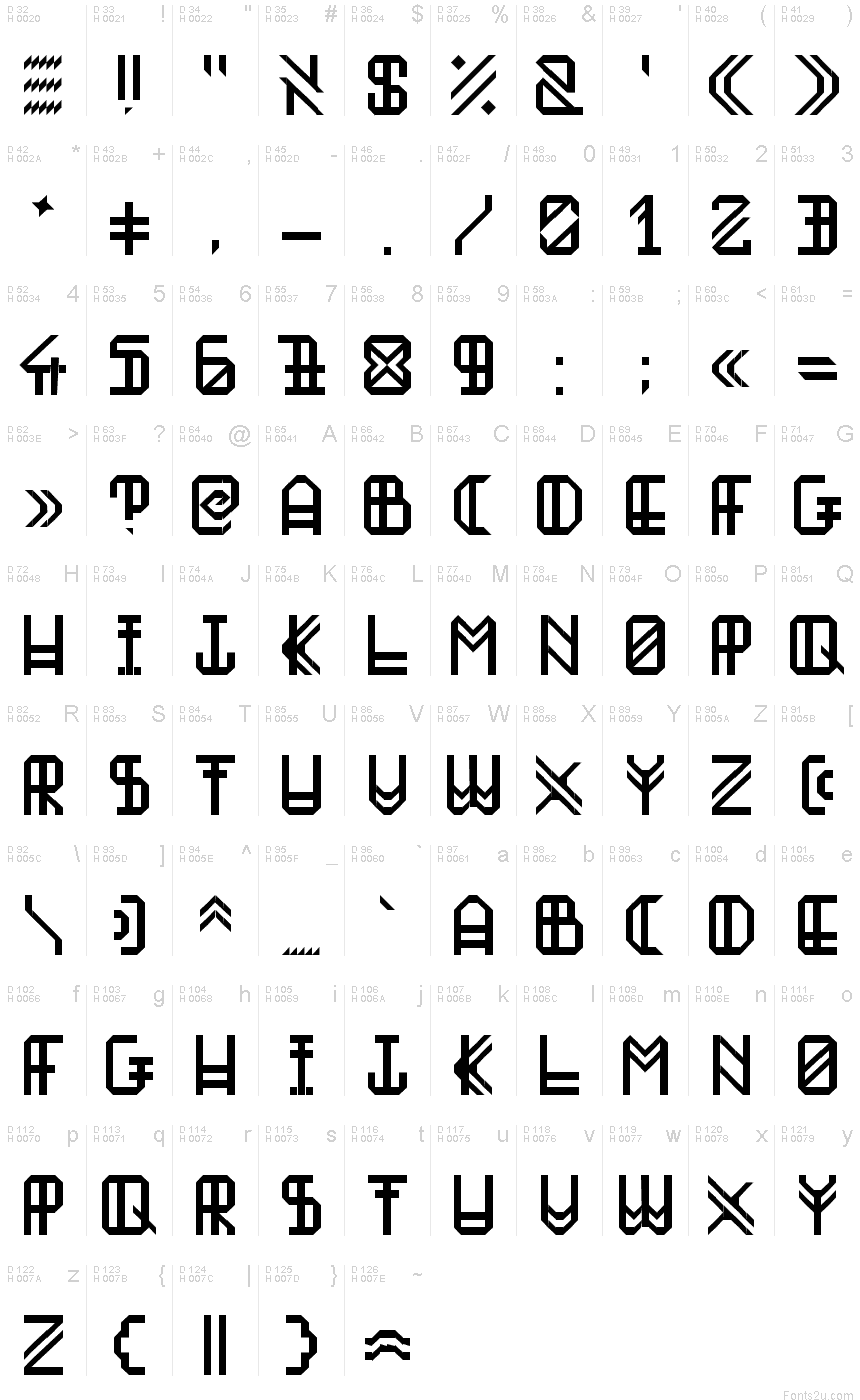
Boyuna by artplatanao of FontStruct is a free futuristic display font with towering, angular letters, severe vertical emphasis, and an architectural build. Narrow openings and repeated internal bars recall engineered signage.
Technology and science fiction are its clearest territory, making it suited to game branding, electronic music posters, and event graphics. Its letterforms can also become a recognizable title treatment for magazines covering digital culture or experimental design.